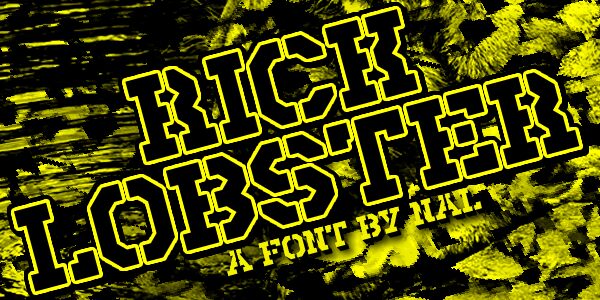
Rick Lobster from Andrew McCluskey is a free military display font with massive squared capitals and the hard geometry of barracks signage. Deep triangular cuts and narrow interior gaps break up the dense strokes. The letter widths change sharply across a line.
Posters and merchandise are its strongest media, especially for combat games, heavy music, or action events. Packaging and team branding can turn those armored shapes into a blunt emblem for audiences drawn to industrial imagery.